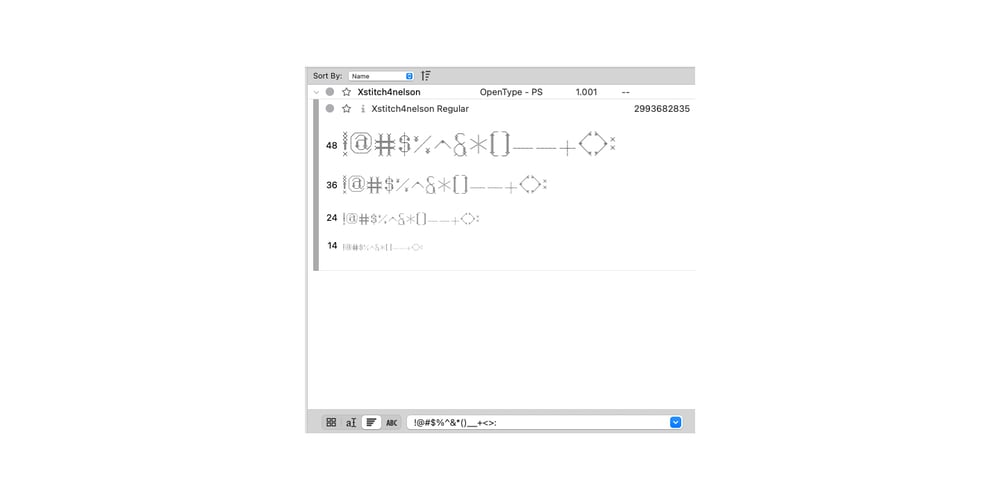
Xstitch4 nelson
Xstitch4 nelson font
Xstitch4 nelson Font Family was designed by Brian Chavez and published by BACnOAK Fonts. Xstitch4 nelson contains 2 styles and family package options. This font was designed to mimic the look of cross-stitch, so it’ll give you that “realistic” vibe on 14pt or 28pt Aida cloth (which, if you get that reference, you’re probably already deep into the world of needlework art). While it’s not an exact replica, it’s close enough to make you say, “Yep, that’s some pretty legit stitching!”Whats the difference between regular and bold. Think of regular as a single strand of floss and bold as two strands of floss that create more of a seed shaped stitch.I will continue to improve this font over time.Thank you for considering my font for your collection.